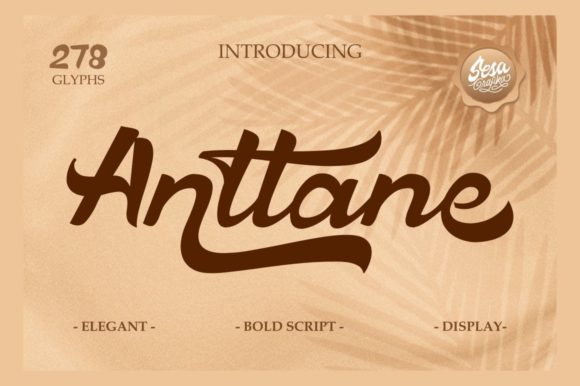
Introducing Anttane Font: The Perfect Blend of Bold, Retro, and Quirky
Are you on the hunt for a font that adds a touch of personality to your designs? Look no further than Anttane Font, a bold and retro script font that’s clean, quirky, and perfect for a variety of projects. In this article, we’ll dive into the features and benefits of Anttane Font, and explore how it can elevate your logos, branding, social media, and DIY projects.
What is Anttane Font?
Anttane Font is a unique and stylish script font that’s inspired by the nostalgia of retro typography. With its bold lines, flowing curves, and subtle quirks, this font is sure to grab attention and leave a lasting impression. Whether you’re designing a logo, creating social media graphics, or working on a crafty DIY project, Anttane Font is the perfect fit.
Key Features of Anttane Font
- Bold and Retro Style: Anttane Font boasts a bold and retro style that’s reminiscent of classic typography. Its clean lines and curves make it easy to read, while its quirky touches add a touch of personality.
- Clean and Quirky: Anttane Font is designed to be clean and quirky, making it perfect for a variety of projects. Its subtle imperfections and irregularities add a touch of handmade charm to your designs.
- Multipurpose: Anttane Font is incredibly versatile and can be used for a wide range of projects, including logos, branding, social media graphics, and DIY projects.
Benefits of Using Anttane Font
So why choose Anttane Font for your next project? Here are just a few benefits of using this amazing font:
- Adds Personality to Your Designs: Anttane Font is designed to add a touch of personality to your designs. Its quirky touches and retro style make it perfect for brands and designers who want to stand out from the crowd.
- Perfect for DIY Projects: Anttane Font is perfect for crafty DIY projects, such as handmade cards, scrapbooking, and other paper crafts. Its bold lines and quirky touches make it a great choice for adding a personal touch to your projects.
Anttane Font is a bold and retro script font that’s perfect for designers and crafters who want to add a touch of personality to their projects. With its clean lines, quirky touches, and PUA encoding, this font is easy to use and versatile enough for a wide range of projects. Whether you’re designing a logo, creating social media graphics, or working on a DIY project, Anttane Font is the perfect choice.